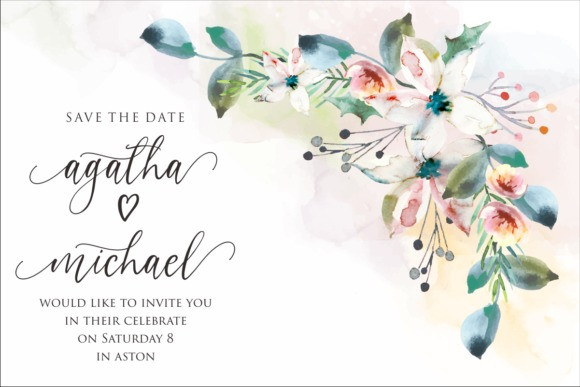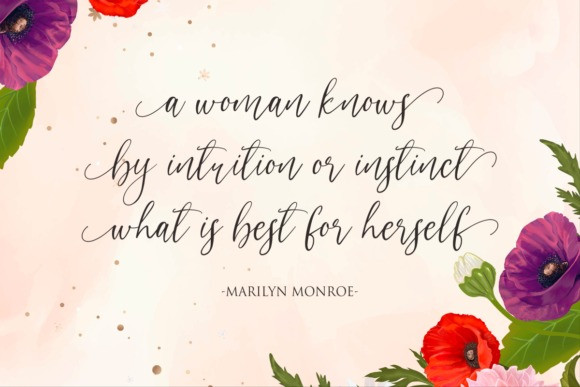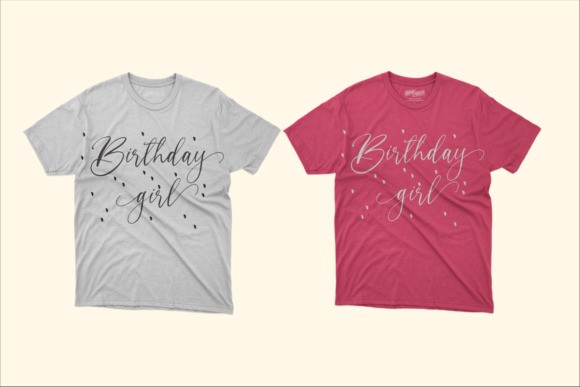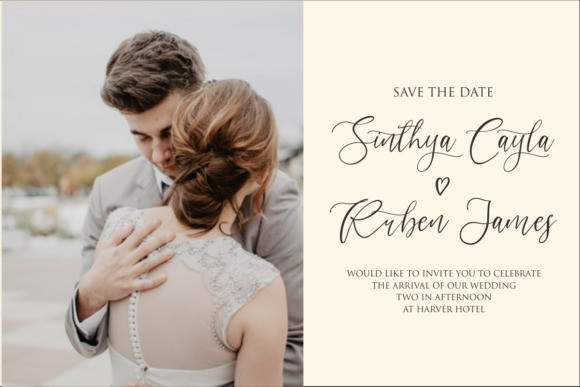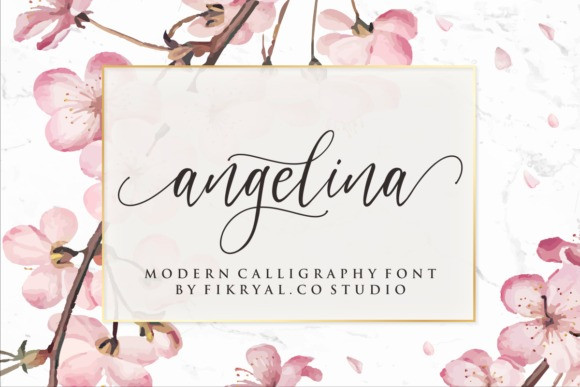
Angelina – Gorgeous Script Font
Introducing Angelina – Gorgeous Script Font. This is a stylish signature script font with a calligraphy style. It’s was designed by mfikryalif. If you want to use for your work this font can be used easily and simply because there are a lot of features in it to contain a complete set of letters lower and uppercase letters,assorted punctuation, numbers, and multilingual support. Angelina is a gorgeous script font with a playful feel. Use it to turn any design idea into a true piece of art! It’s a calligraphy font that is perfect for branding, social media headers, product packaging, wedding invites and cards and so on.